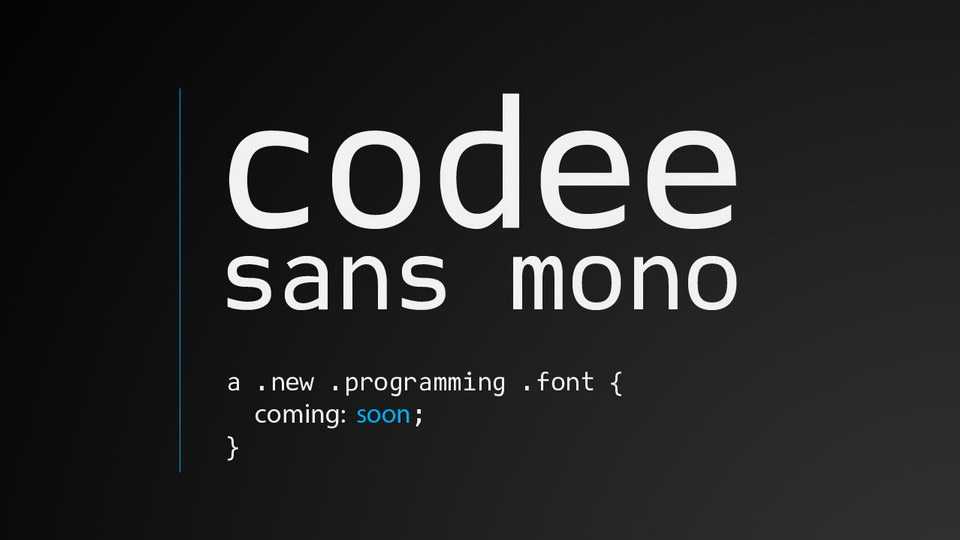
Download Codee Sans Mono font, a monospaced typeface for programming. It designed for coding in a world of retina displays, inspired by the great such as Panic, Consolas, Inconsolata, Ubuntu Mono.
Designer: Cody Jones